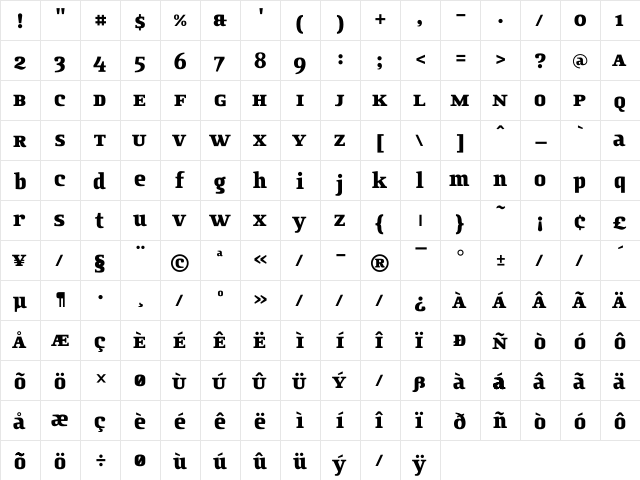
Anubis Regular
| Designer | Dino dos Santos |
Design Context for Anubis Typeface
Anubis takes a measured approach to typography — its balanced proportions and neutral character make it a reliable workhorse for both digital and print work.